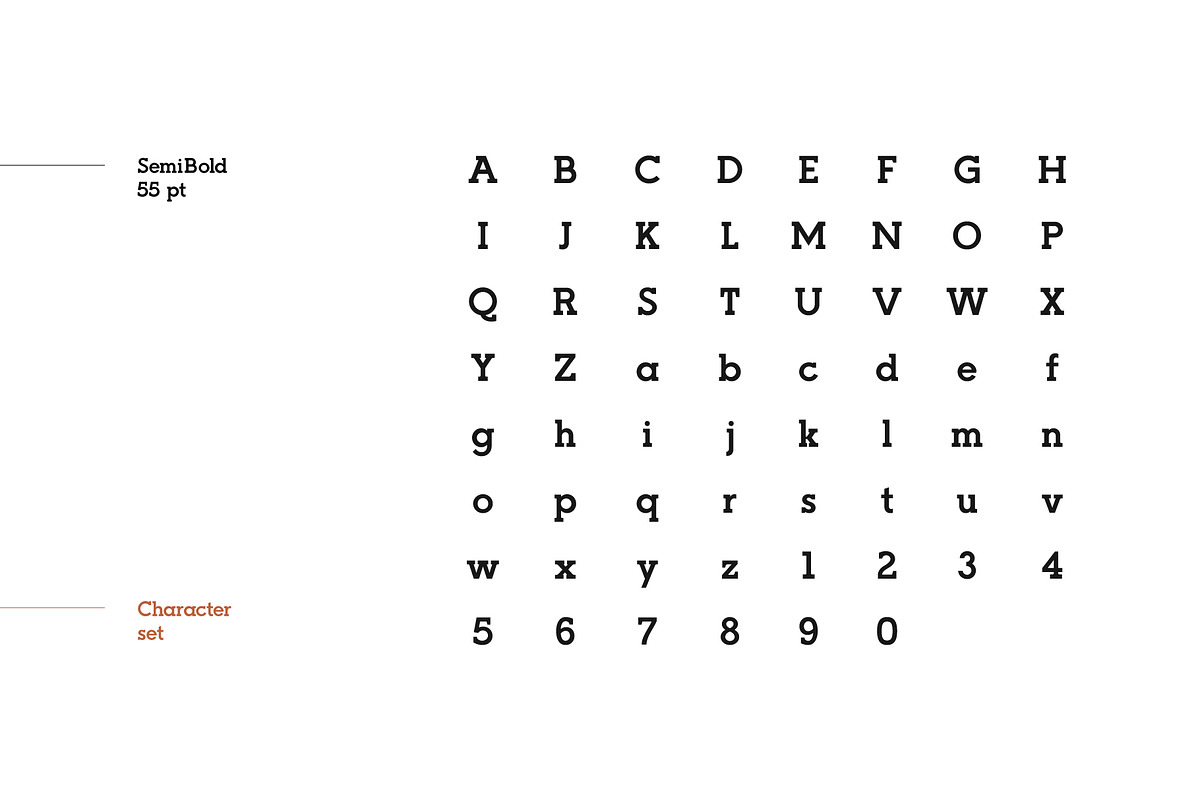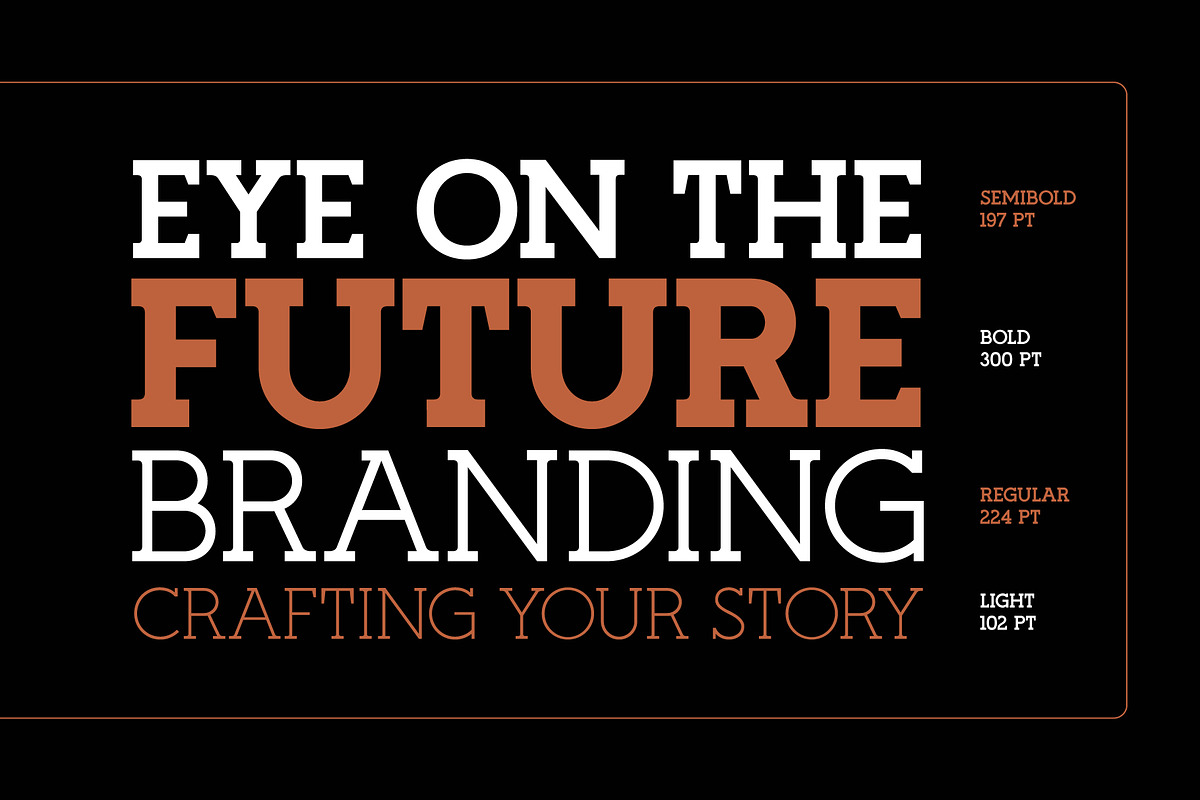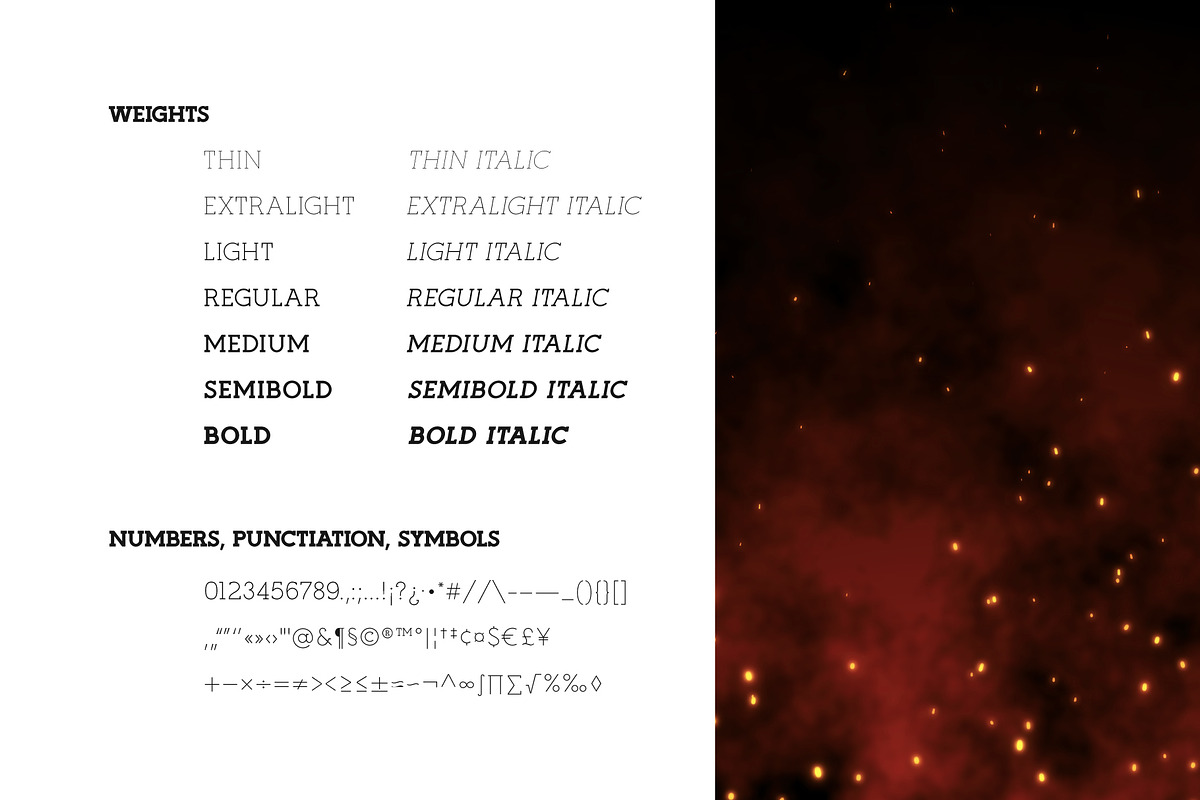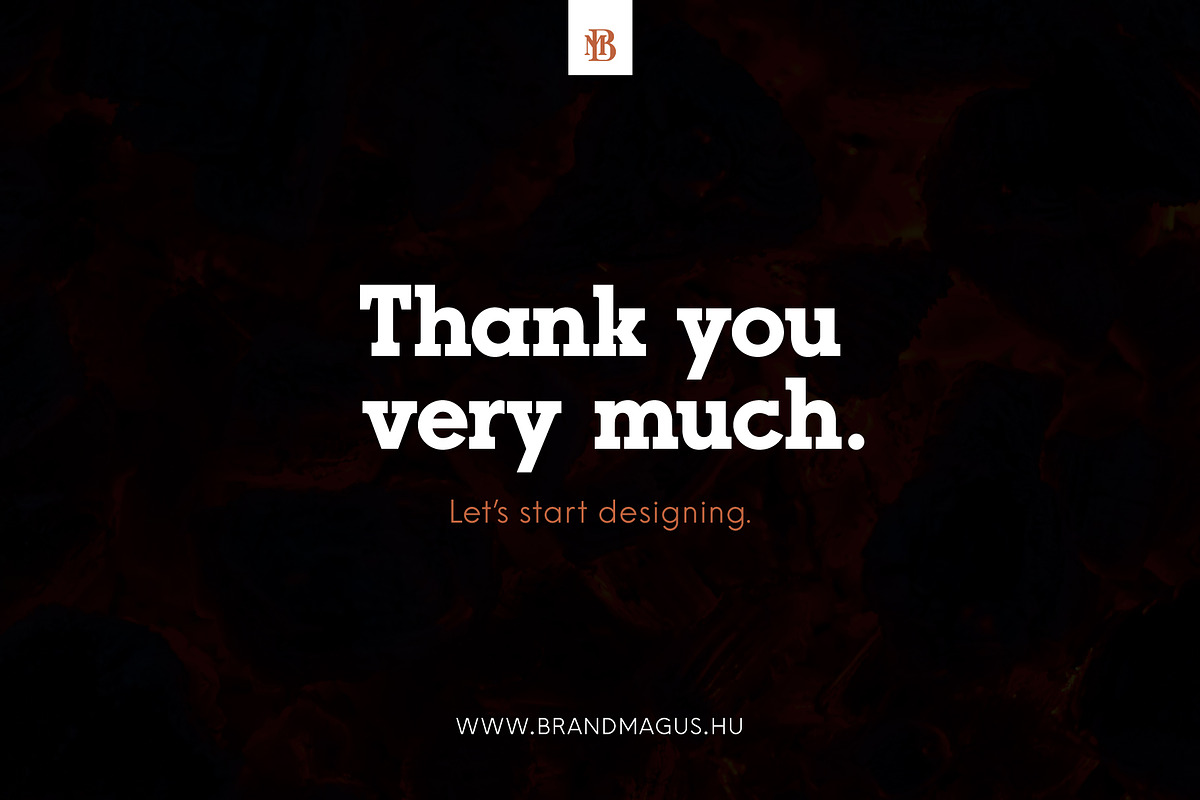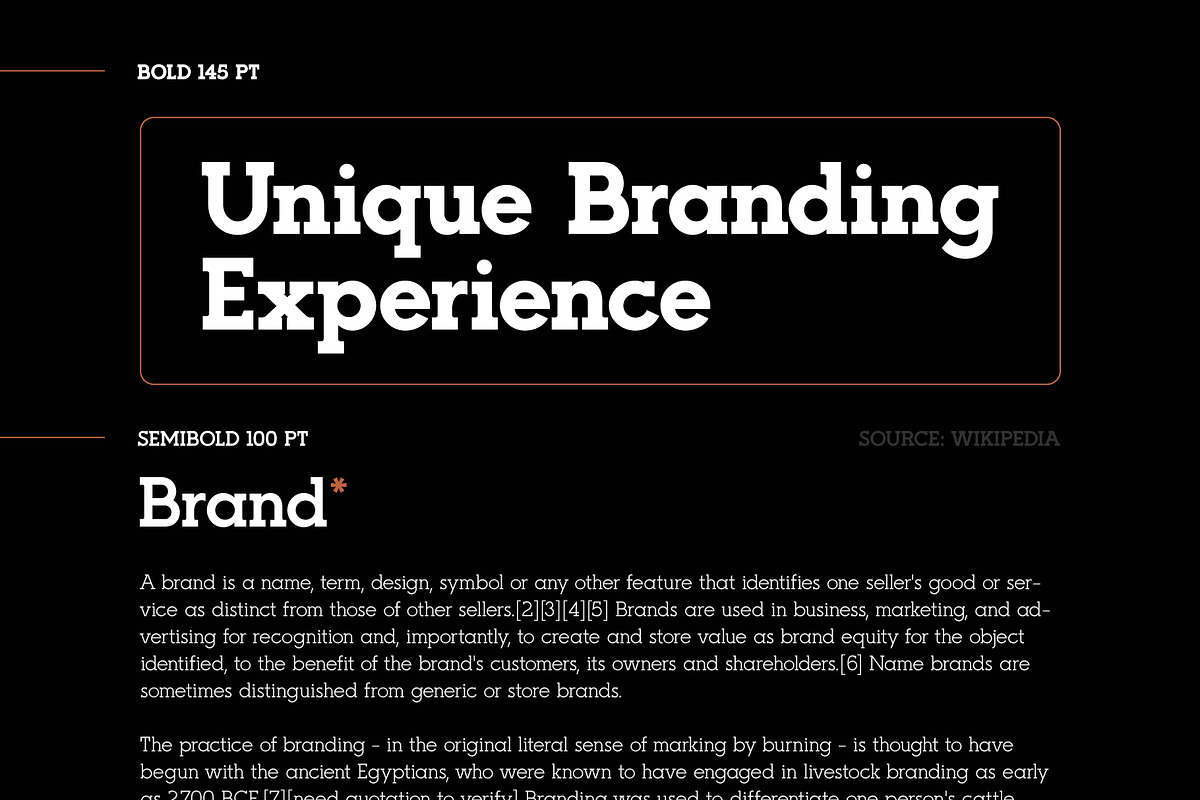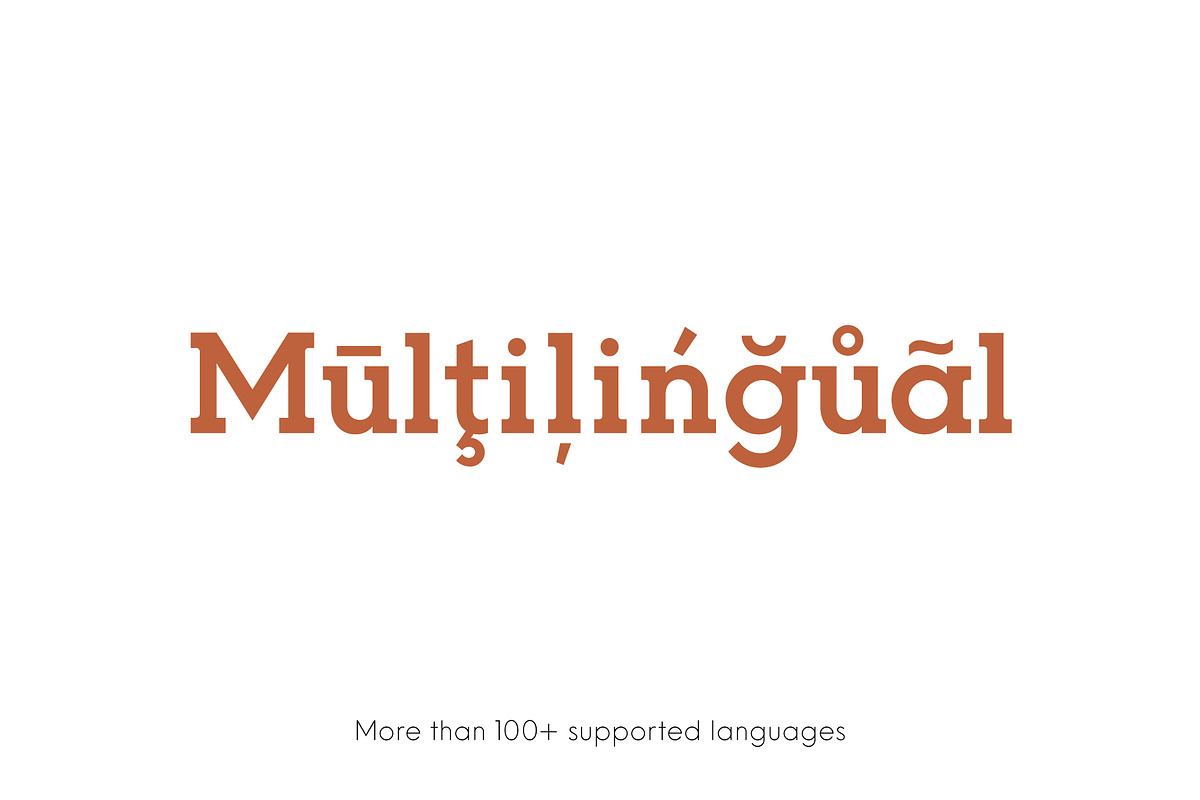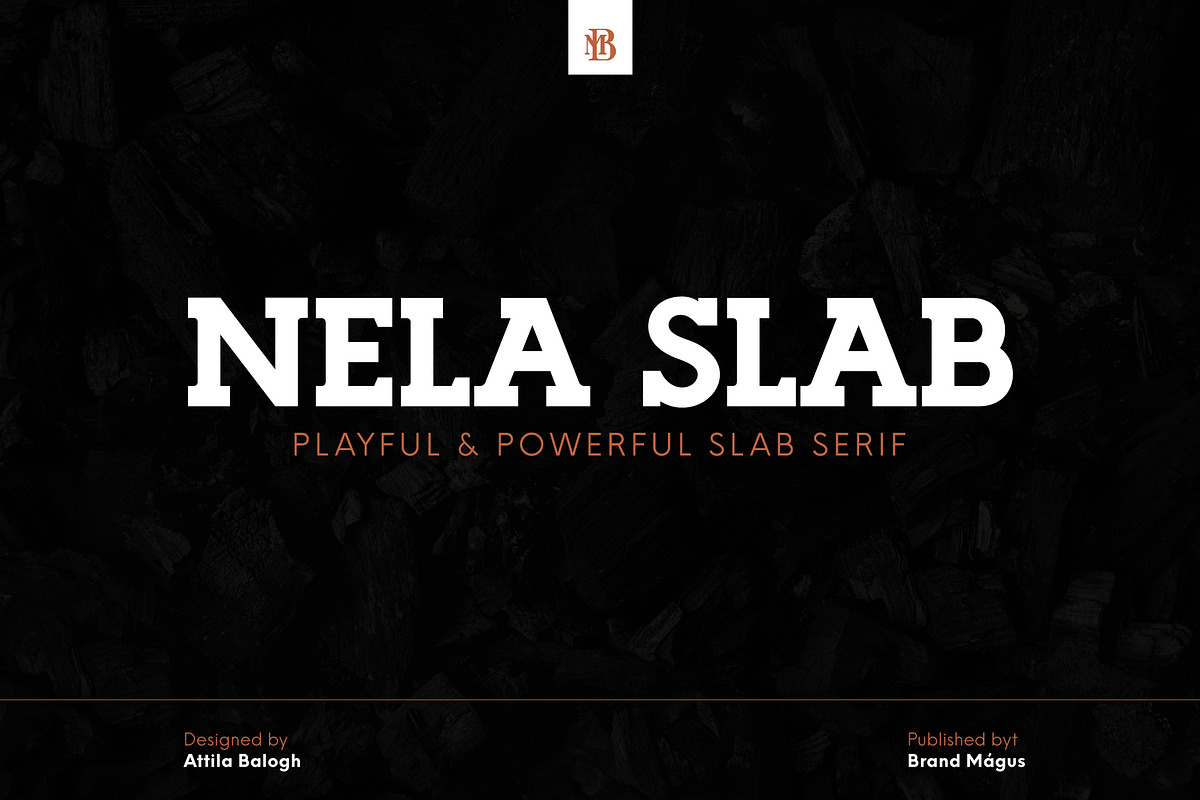
Nela Slab - Playful & Powerful Slab
We want to make our first Superfamily, so after releasing Nela Sans, we started to working it's slab version.
Nela Slab includes fourteen fonts: Seven weights + italic
FEATURES Seven weights / Numbers & Punctuation / Extensive Language Support
USE Nela Slab is a good choice for any branding project. Use it for logos, magazines or anything else. Thankfully for the seven weights you can easily play with feelings and emotion that you want to broadcast.